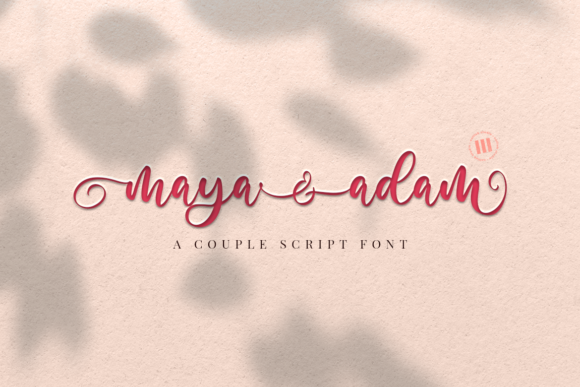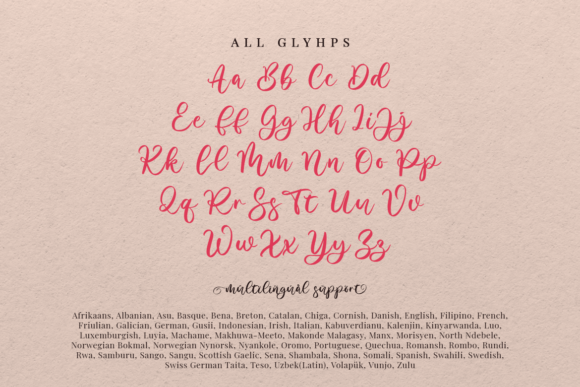
About Maya and Adam Font
Maya and Adam is a captivating and refined handwritten font that exudes a romantic and elegant charm. Its graceful strokes and intricate details make it a perfect choice for a variety of design projects that require a personalized and sophisticated touch.
When used on wedding invitations, Maya and Adam adds a sense of timeless beauty and romance to the design. The font’s delicate curves and swashes create an air of elegance that complements the sentiment of love and celebration that weddings embody. Whether it’s used for names, headings, or decorative elements, Maya and Adam enhances the overall aesthetic of the invitation, setting the tone for a memorable occasion.
In thank you cards, the font continues to shine with its graceful appearance. It adds a touch of gratitude and warmth to your words, making your expressions of appreciation even more heartfelt and genuine. The font’s PUA encoding allows you to easily access a variety of glyphs and swashes, allowing you to customize your design and make it truly unique.
For quotes and greeting cards, Maya and Adam brings a sense of sophistication and emotion to your messages. Its elegant script conveys sentiments with a touch of refinement, making your words resonate with readers and leaving a lasting impression.
In logo and branding projects, Maya and Adam adds a personalized and distinctive touch. Whether it’s used as part of a logo, tagline, or brand name, the font’s romantic flair helps create a memorable visual identity that captures the essence of your business.
Business cards benefit from Maya and Adam’s elegant and customized look. It creates a sense of professionalism and attention to detail, leaving a positive impression on potential clients and contacts.
In every design that requires a customized touch, Maya and Adam shines as a font that embodies romance and elegance. Its PUA encoding makes it easy to access a range of decorative elements, allowing you to tailor your designs to perfection. Overall, Maya and Adam is a versatile and enchanting handwritten font that elevates any project with its romantic and elegant character.